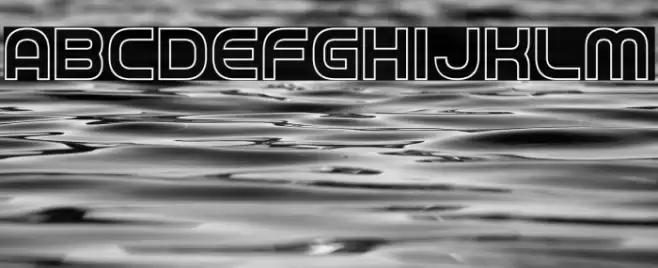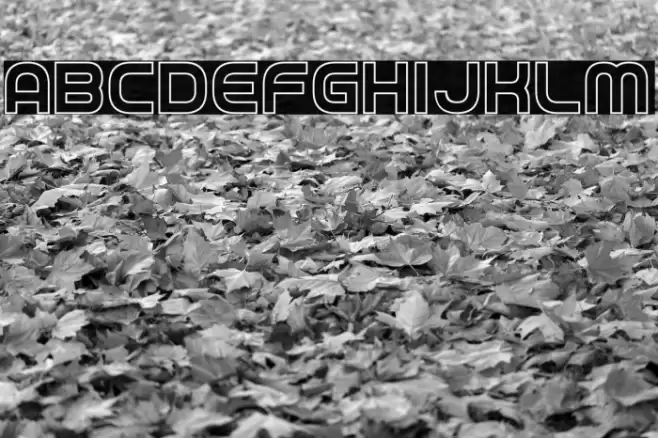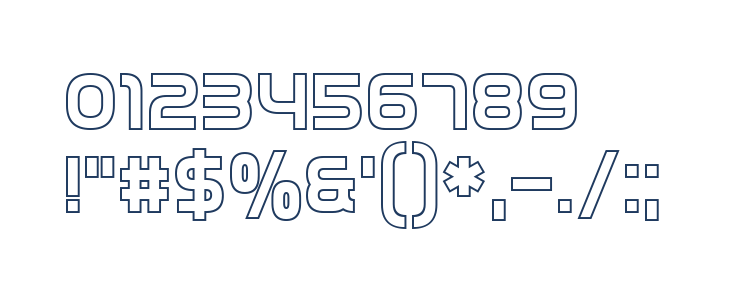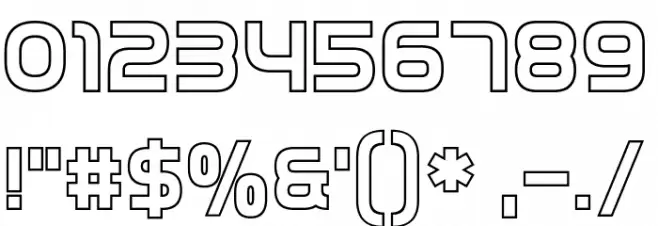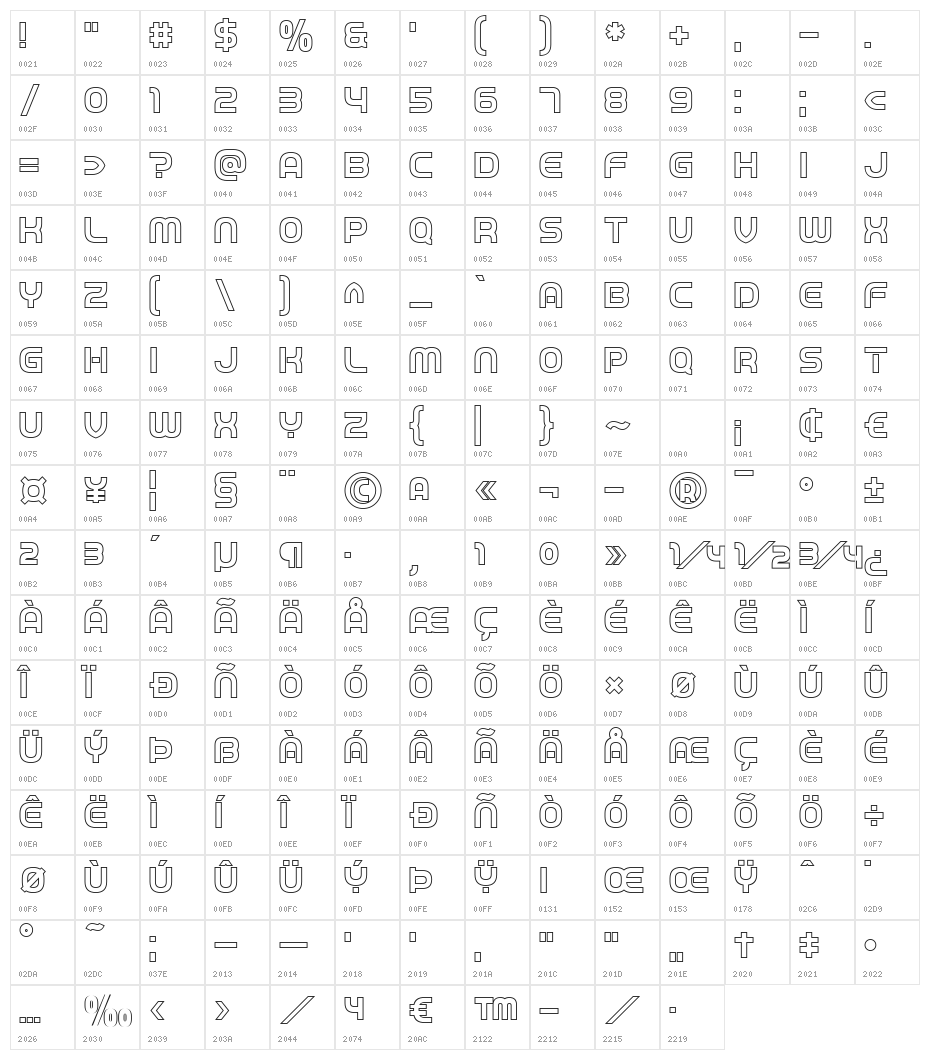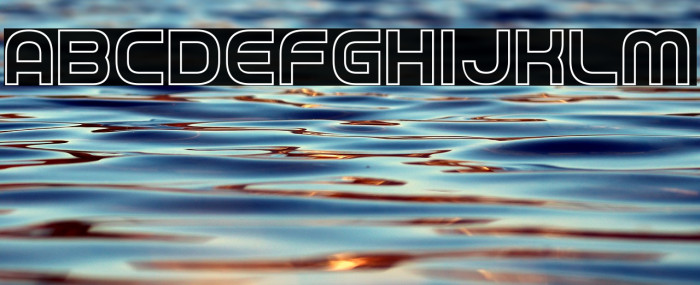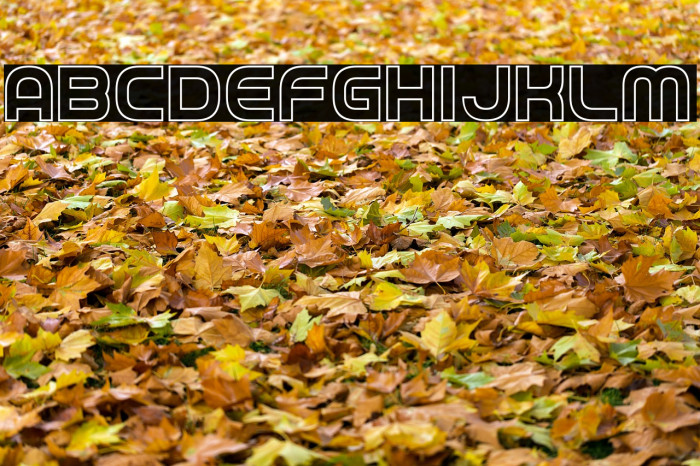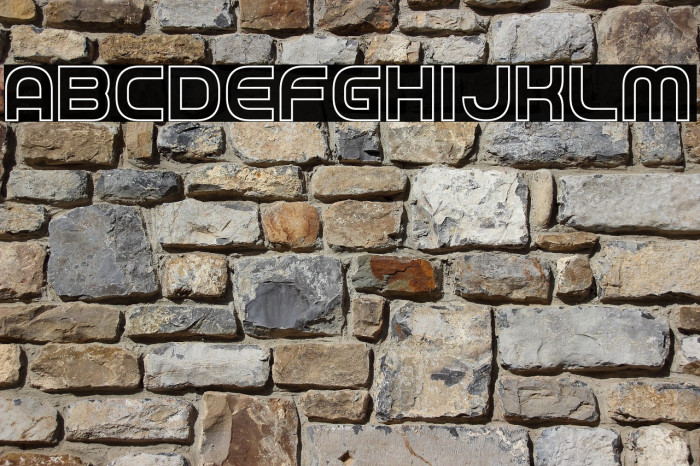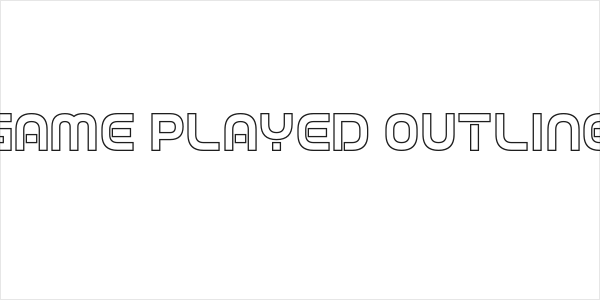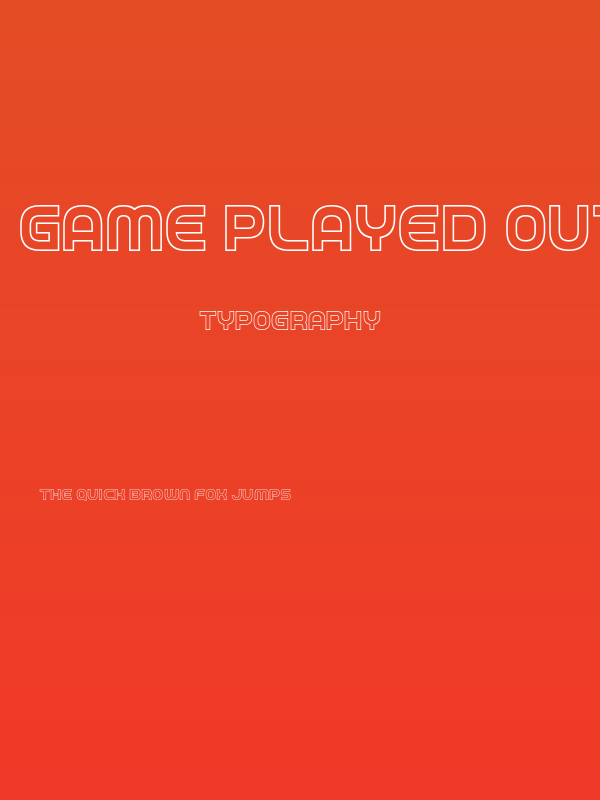
Game Played Outline Font
Game Played Outline Description
This font features a bold, geometric outline style that emphasizes clarity and modernity. Each character is crafted with precision, showcasing a uniform stroke width that creates a cohesive and structured appearance. The uppercase and lowercase letters maintain a consistent height and width, contributing to a balanced and harmonious look. The numerals and special characters are designed with the same attention to detail, ensuring they integrate seamlessly with the alphabetic characters. This font's outline style gives it a unique, futuristic feel, making it ideal for projects that require a standout, contemporary aesthetic.
A bold, geometric outline font with a modern and structured appearance from Uncategorized fonts.
- Proposed Projects: Ideal for video game titles, tech branding, futuristic posters, and digital media.